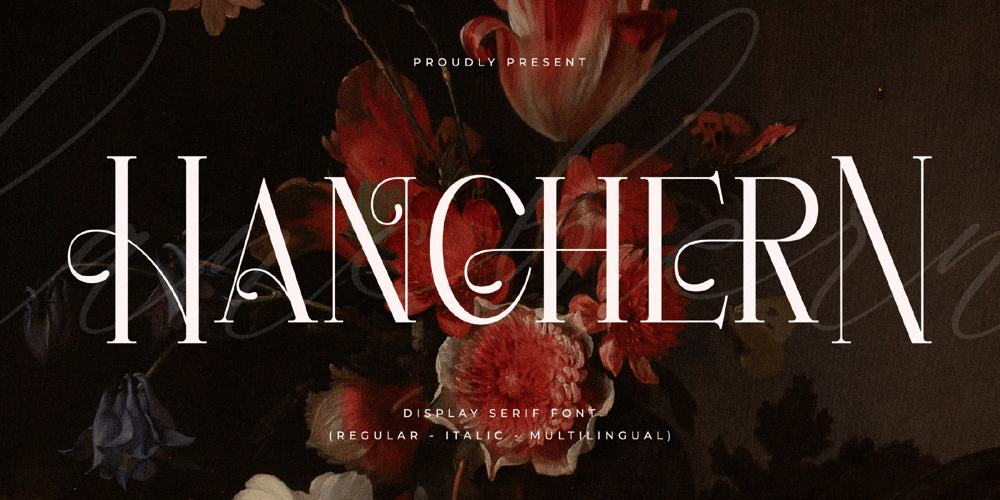
Hanchern Font Family was designed by Heru Utama Putra and published by Letterena Studios. Hanchern contains 2 styles and family package options. Hanchern is a modern and classic serif typeface with its own unique look. This typeface is perfect for an elegant & luxurious logo, book or movie title design, fashion brand, magazine, clothes, lettering, quotes, and so much more.